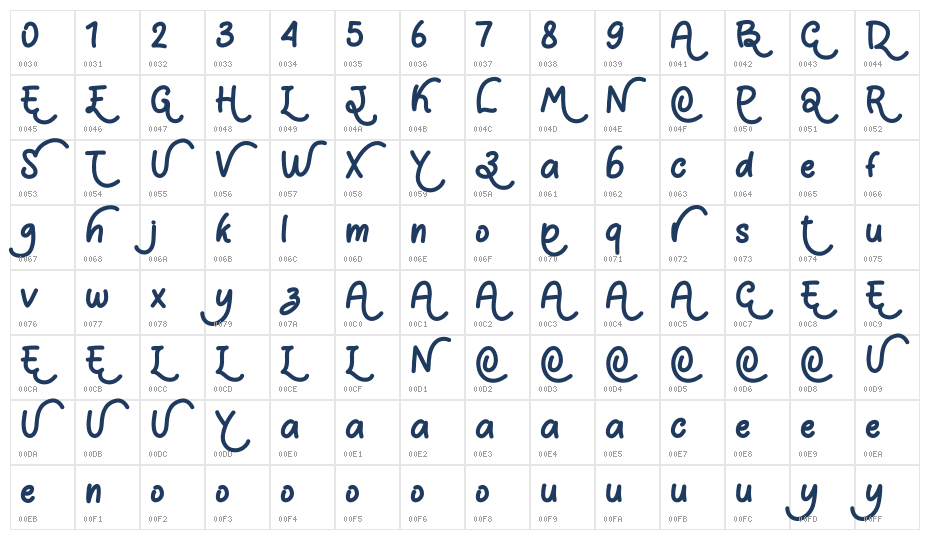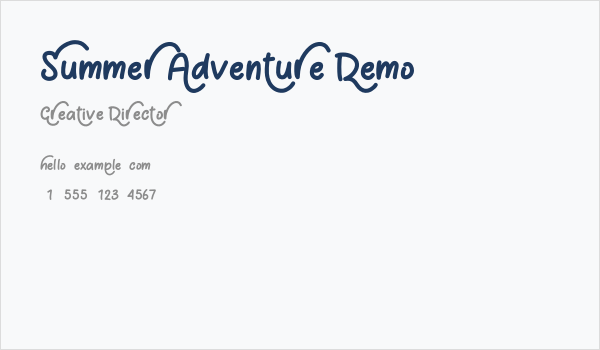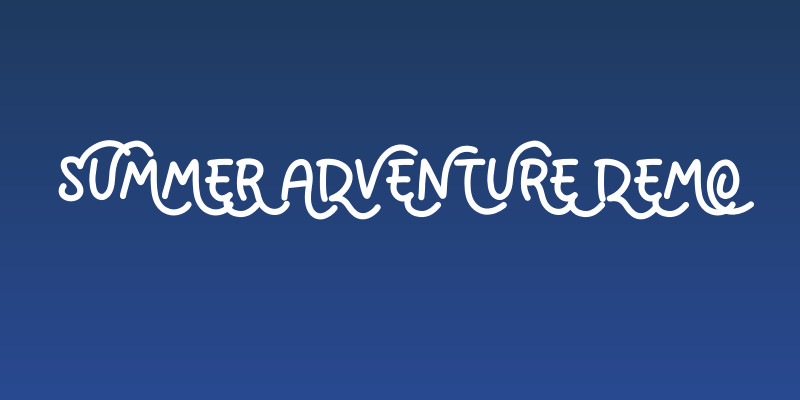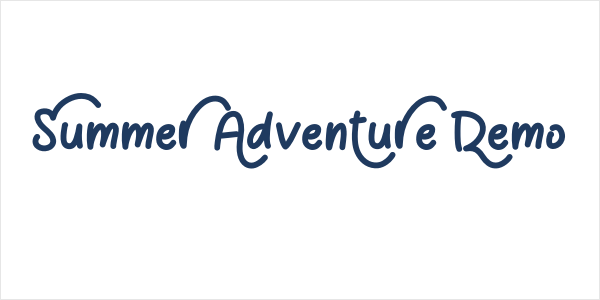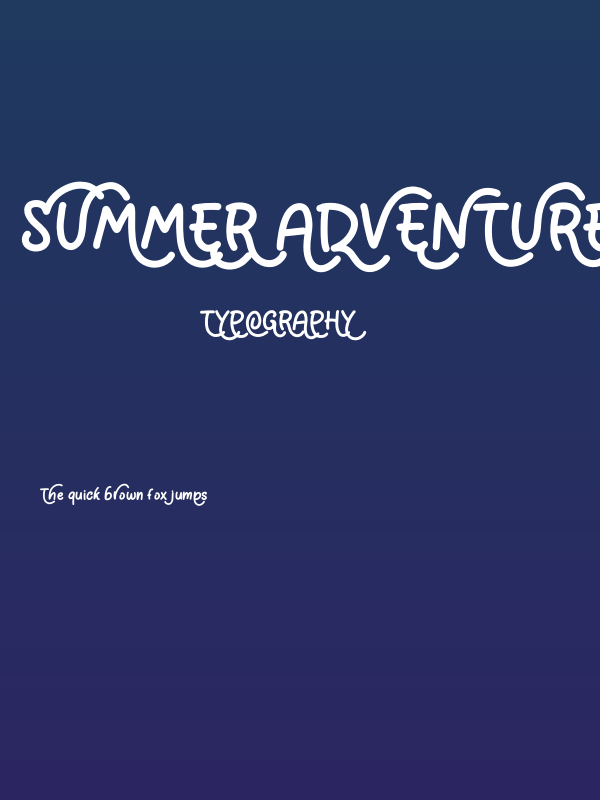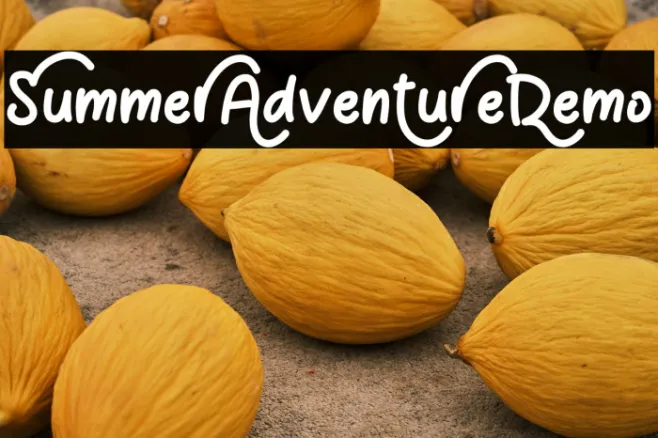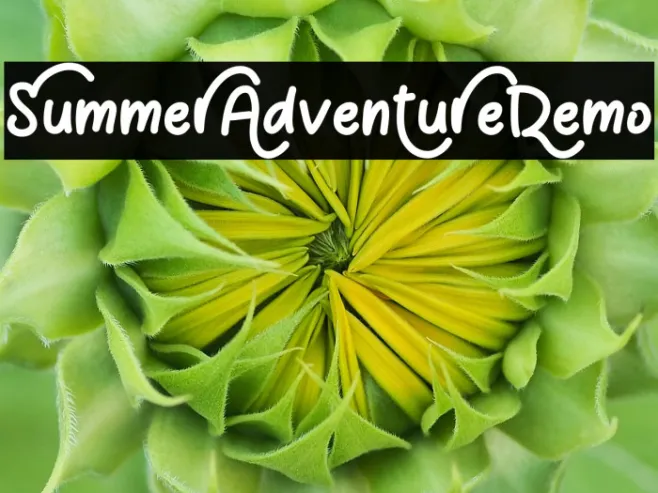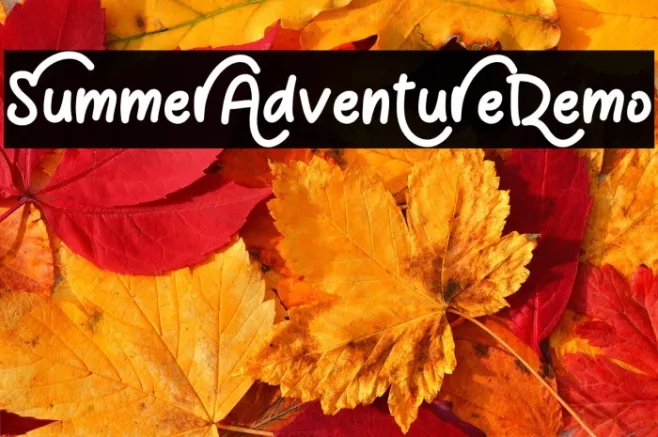
Summer Adventure Demo Font
Summer Adventure Demo Description
A playful, handwritten script font with a casual and whimsical style, featuring rounded and flowing characters.
| Use Case | Invitations, Greeting Cards, Children's Products, Casual Branding |